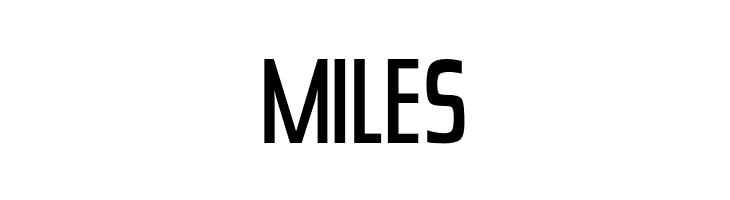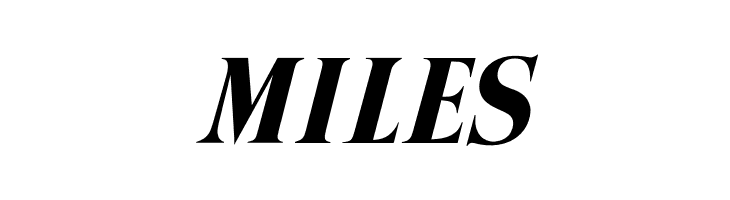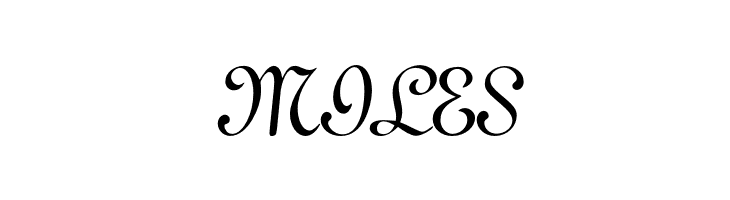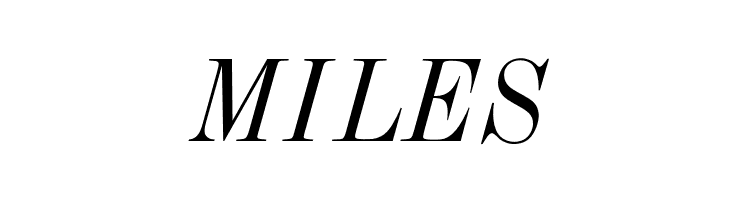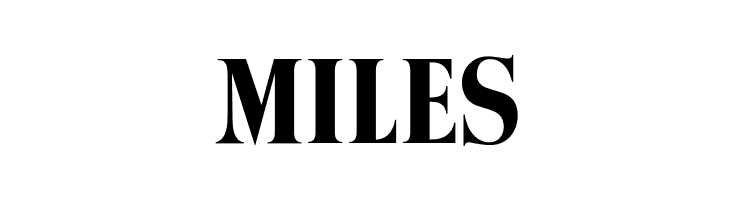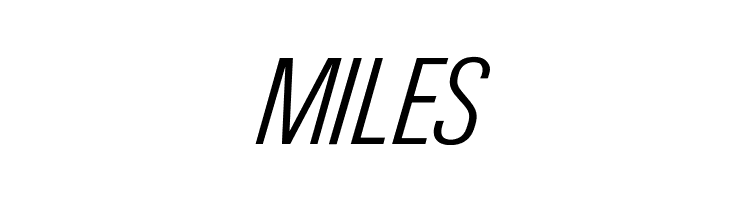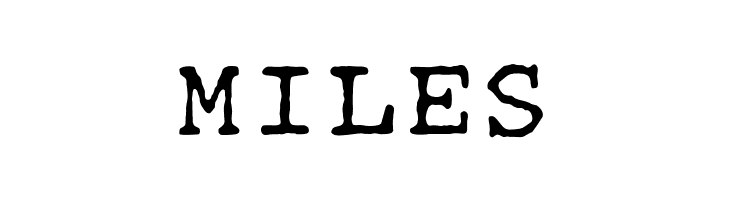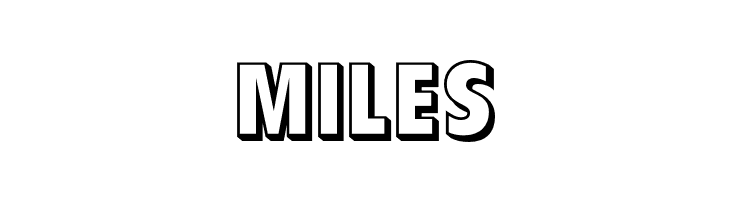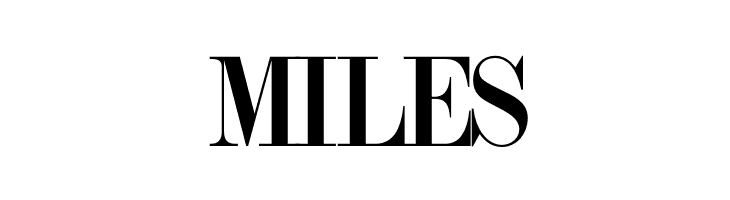
An elegant serif font with a classic italic style, perfect for formal uses.
A modern, extended sans-serif font with clean lines and balanced spacing.
A bold, extended font with clean lines and uniform stroke width.
A bold, modern font with strong geometric shapes and clean lines.
A modern, geometric sans-serif font with uniform stroke width and excellent legibility.
A classic serif font with elegant and refined letterforms.
A bold, high-contrast serif font with pronounced serifs and strong visual impact.
A bold, high-contrast serif font with dramatic and elegant features.
An elegant italic serif font with smooth curves and refined details.
A classic serif font with high contrast and elegant strokes.
An elegant, high-contrast serif font with a calligraphic influence.
A bold, high-contrast serif typeface with pronounced serifs and a classic style.
A classic italic serif font with elegant, sharp serifs and moderate contrast.
A bold serif typeface with strong, thick strokes and slightly condensed letterforms.
A modern serif font with elegant, well-proportioned characters.
A vintage typewriter-style font with a monospaced, slightly distressed design.
An elegant script font with flowing curves and sophisticated swashes.
A classic serif font with elegant strokes and refined details.
Bold, condensed font with strong vertical emphasis and medium contrast.
A bold, rounded monospaced font with a playful and structured design.
Bold, outlined font with a three-dimensional effect.
A bold serif font with high contrast and strong serifs, offering a classic yet modern look.